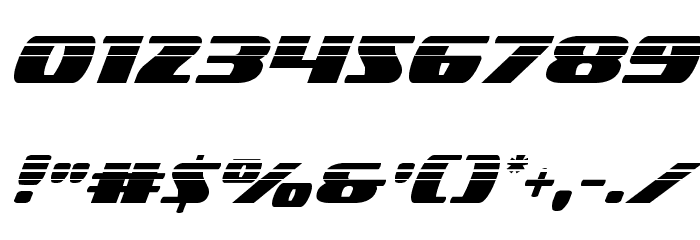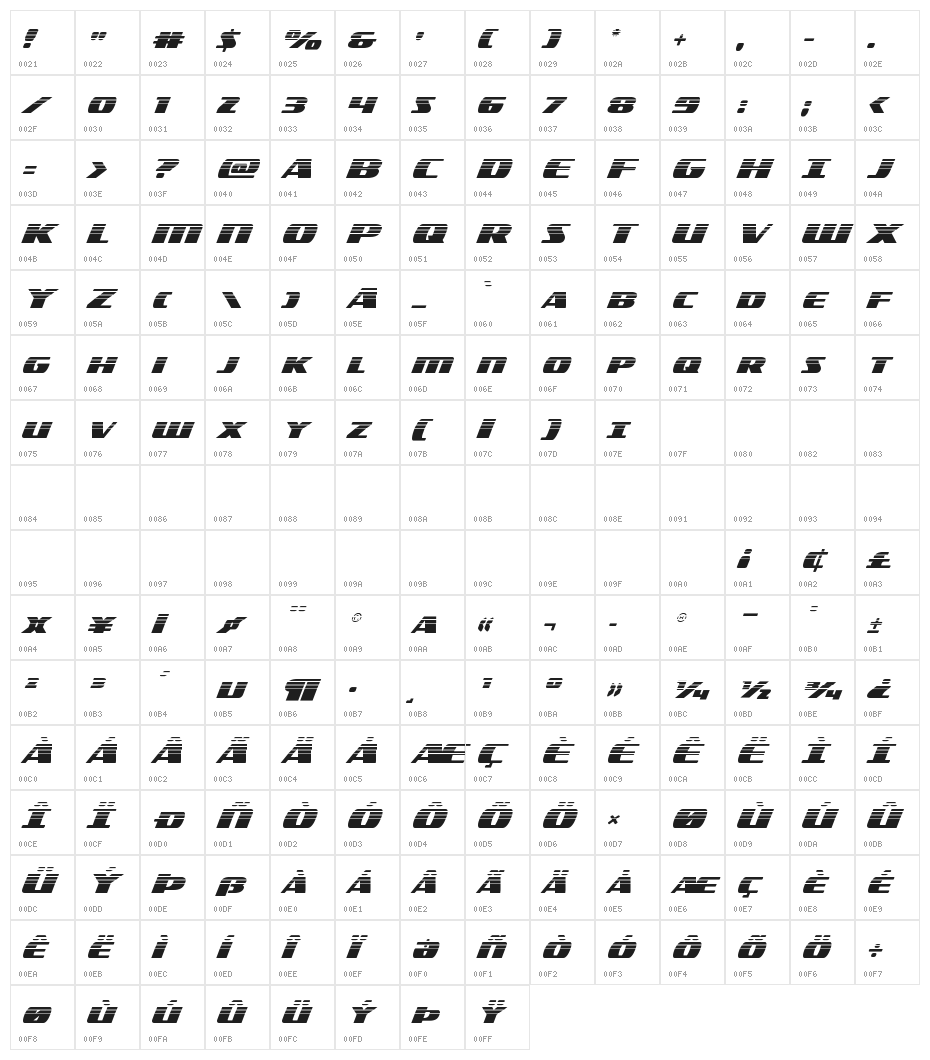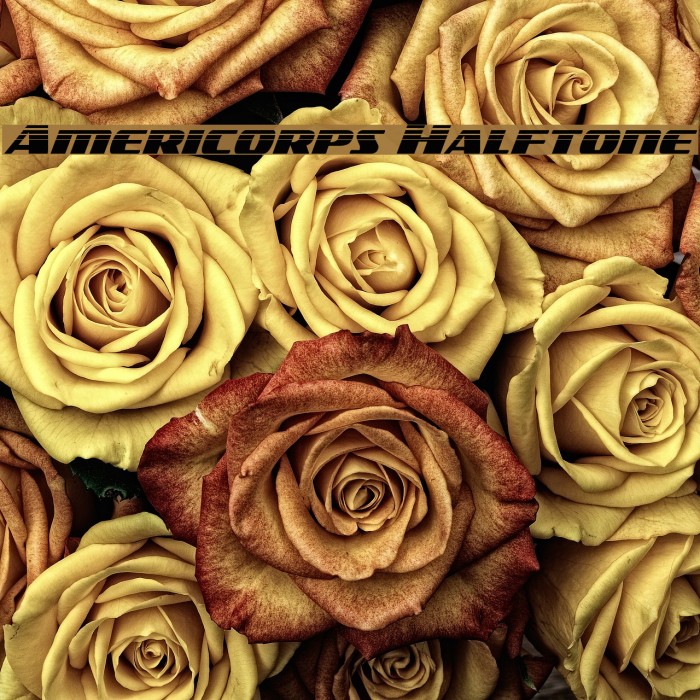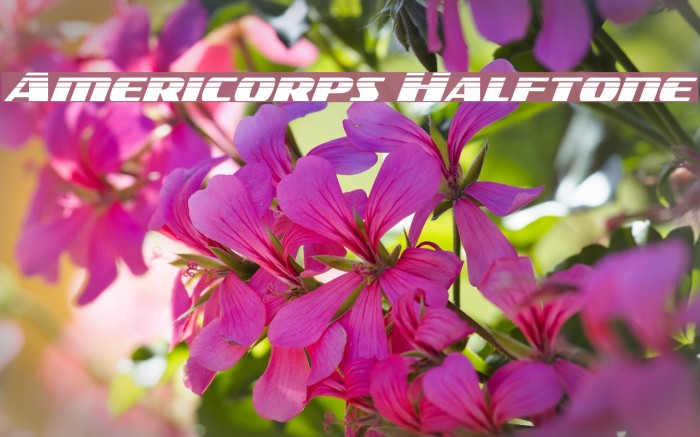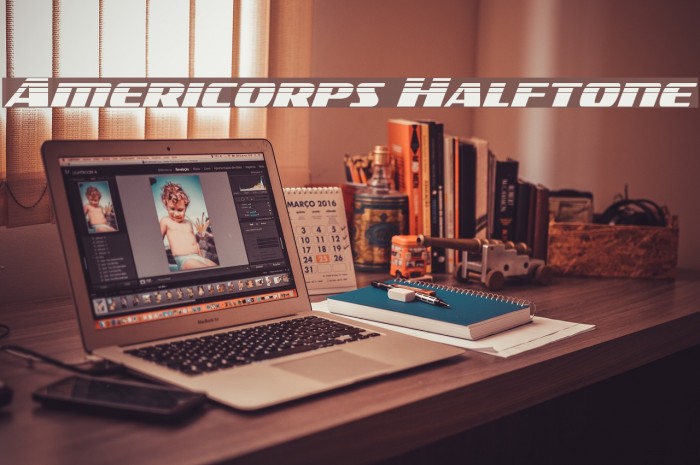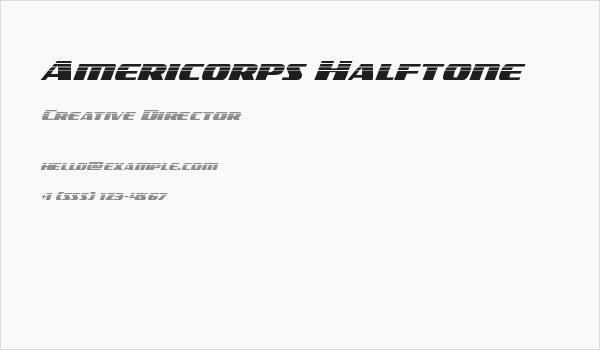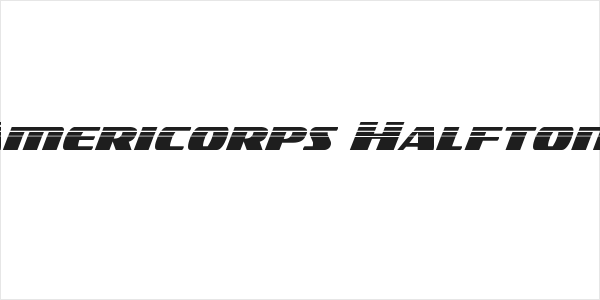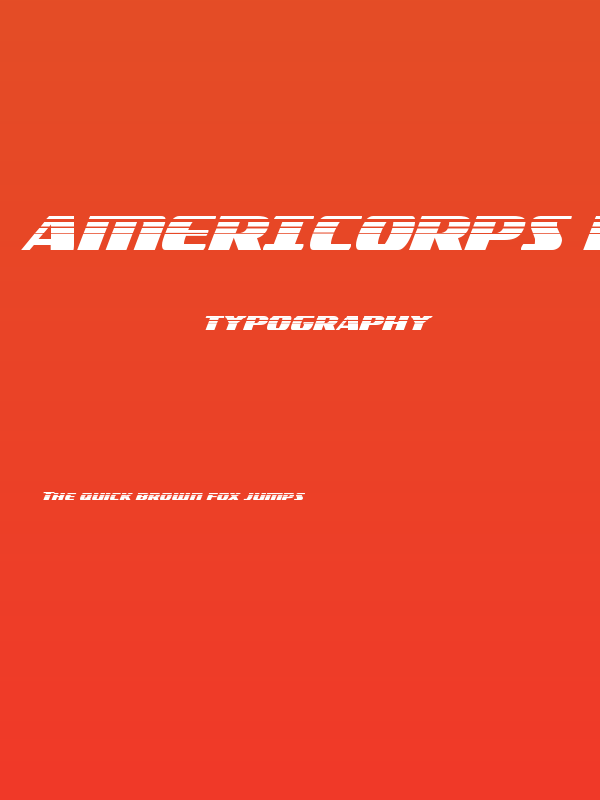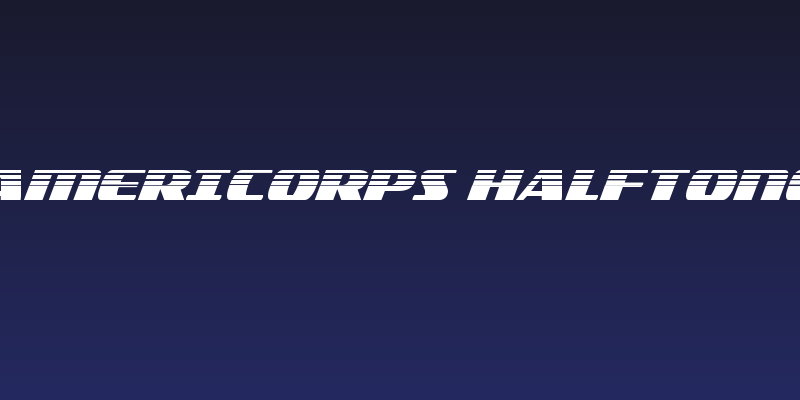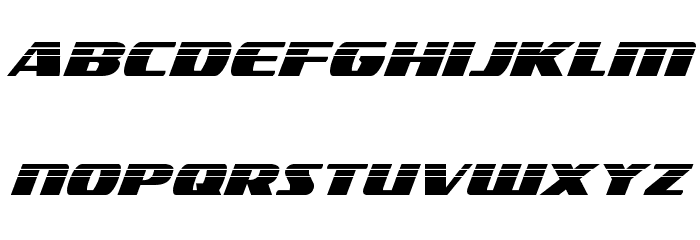
Americorps Halftone Font
Americorps Halftone Description
This font features a bold and dynamic design with a halftone effect that gives it a unique, textured appearance. The characters are slanted, adding a sense of motion and energy, making it stand out in any design. The uppercase and lowercase letters maintain a consistent style, with sharp angles and a futuristic feel. The numbers and special characters are equally bold, ensuring uniformity across all text elements. The font's distinct style is ideal for projects that require a modern and edgy look.
| Proposed Projects | Ideal for posters, album covers, sports branding, and any project needing a bold, modern aesthetic. |